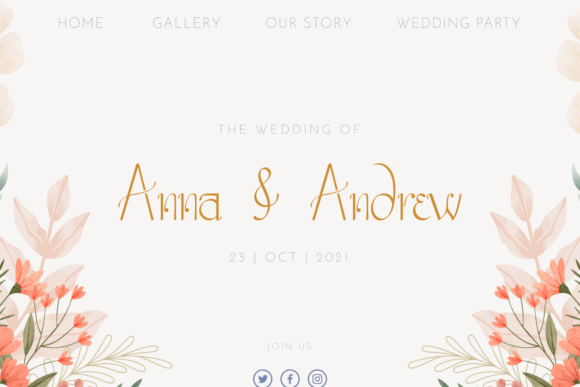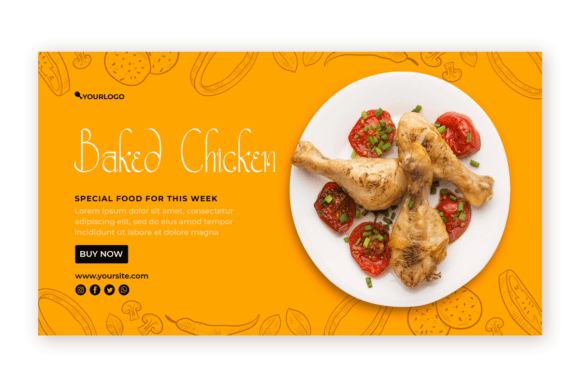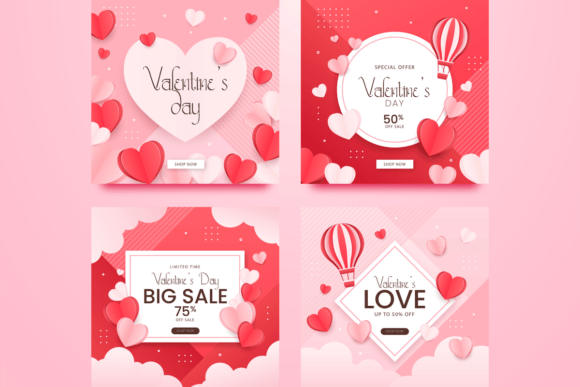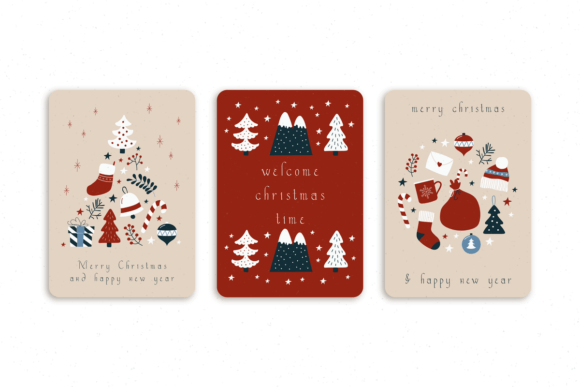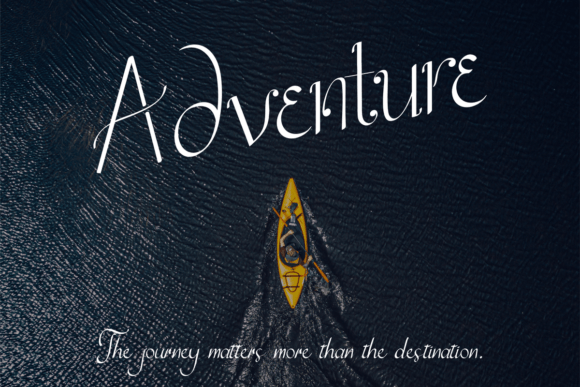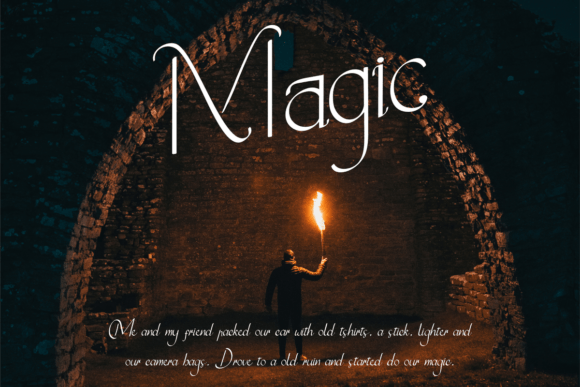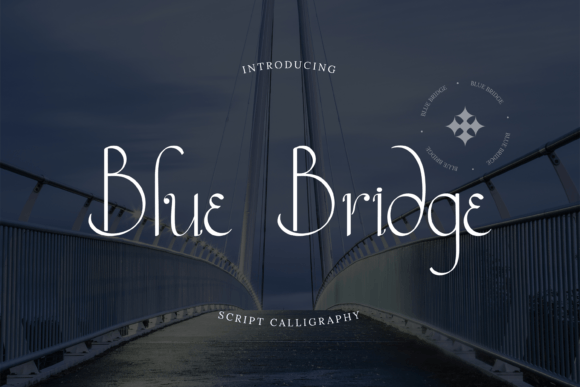
Introducing Blue Bridge Font: Elevate Your Designs with Modern Calligraphy
In the world of digital design, fonts play a crucial role in conveying the tone and personality of a brand or project. For designers and crafters looking to add a touch of elegance and sophistication to their work, the Blue Bridge Font is an excellent choice. This modern calligraphy script font is perfect for a wide range of applications, from branding projects and logos to wedding designs, social media posts, and more.
What is Blue Bridge Font?
Blue Bridge Font is a beautifully crafted modern calligraphy script font that exudes elegance and refinement. Its fluid strokes and intricate details make it an ideal choice for designers seeking to add a touch of luxury to their projects. The font’s unique and stylish appearance sets it apart from more traditional fonts, making it perfect for projects that require a bit of flair.
Key Features of Blue Bridge Font
- Modern Calligraphy Style: Blue Bridge Font boasts a modern calligraphy style that is both elegant and sophisticated.
- Versatile: This font is perfect for a wide range of applications, including branding projects, logos, wedding designs, social media posts, advertisements, product packaging, and more.
- Handwritten Touch: The font’s handwritten appearance adds a personal touch to any project, making it ideal for designers seeking to create unique and eye-catching designs.
- Easy to Read: Despite its intricate details, Blue Bridge Font is easy to read, making it perfect for body text and headlines.
Use Cases for Blue Bridge Font
Blue Bridge Font is an incredibly versatile font that can be used in a variety of applications, including:
- Branding Projects: Create a lasting impression with a custom logo or brand identity that showcases your unique personality.
- Wedding Designs: Add a touch of elegance to your wedding invitations, programs, and other stationery.
- Social Media Posts: Elevate your social media presence with eye-catching graphics and posts that showcase your brand’s personality.
- Advertisements: Create attention-grabbing ads that stand out from the crowd with Blue Bridge Font.
- Product Packaging: Add a touch of luxury to your product packaging and make it stand out on store shelves.
- Label and Photography: Use Blue Bridge Font to create beautiful labels and watermarks for your photos.
- Invitation and Stationery: Create beautiful invitations, stationery, and other paper goods that showcase your personal style.
Why Choose Blue Bridge Font?
With so many fonts available, why choose Blue Bridge Font? Here are just a few reasons why designers and crafters love this modern calligraphy script font:
- Unique and Stylish: Blue Bridge Font is a one-of-a-kind font that will set your designs apart from the crowd.
- Elegant and Sophisticated: This font exudes elegance and sophistication, making it perfect for high-end brands and luxury products.
In conclusion, Blue Bridge Font is a beautiful modern calligraphy script font that is perfect for designers and crafters looking to add a touch of elegance and sophistication to their work. With its versatile use cases, unique and stylish appearance, and easy-to-use design, this font is an excellent choice for a wide range of applications. Whether you’re working on a branding project, wedding design, or social media post, Blue Bridge Font is sure to elevate your designs and help you stand out from the crowd.